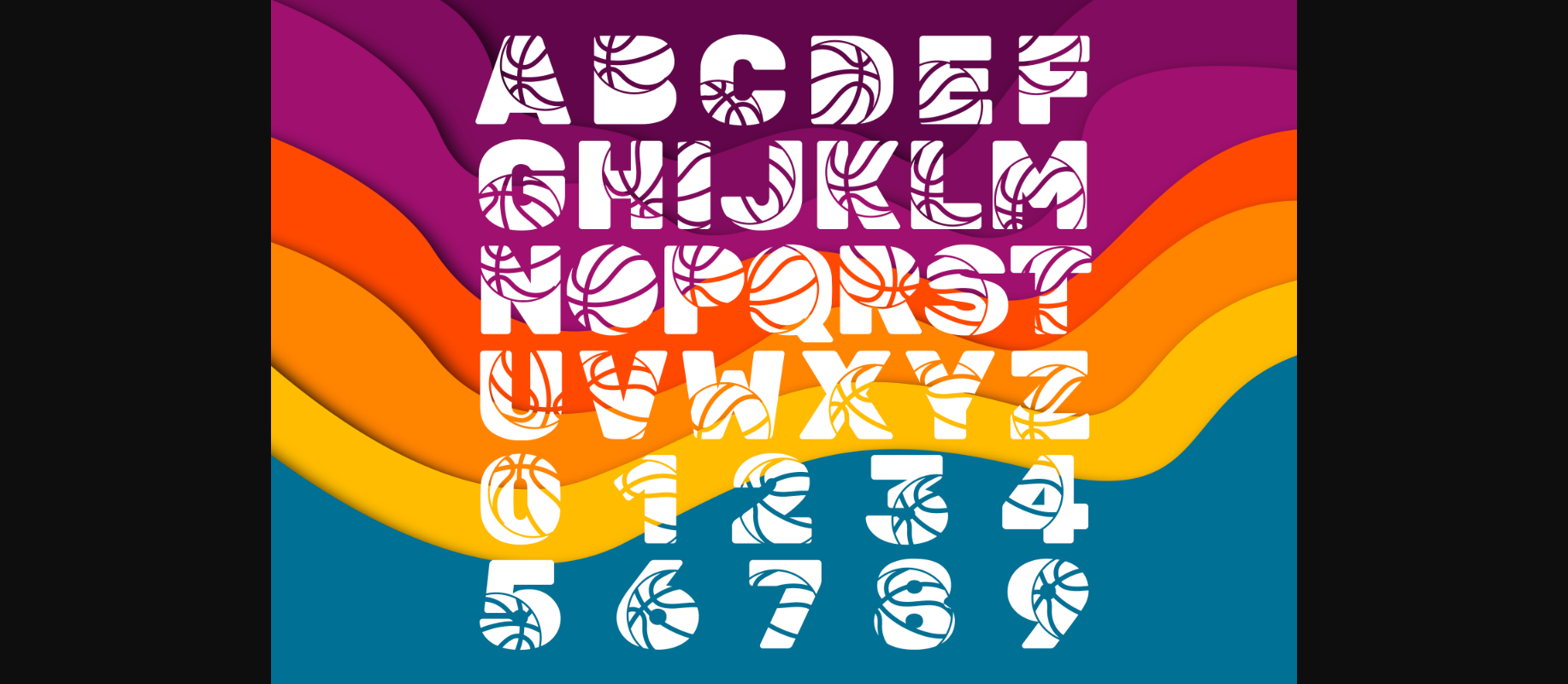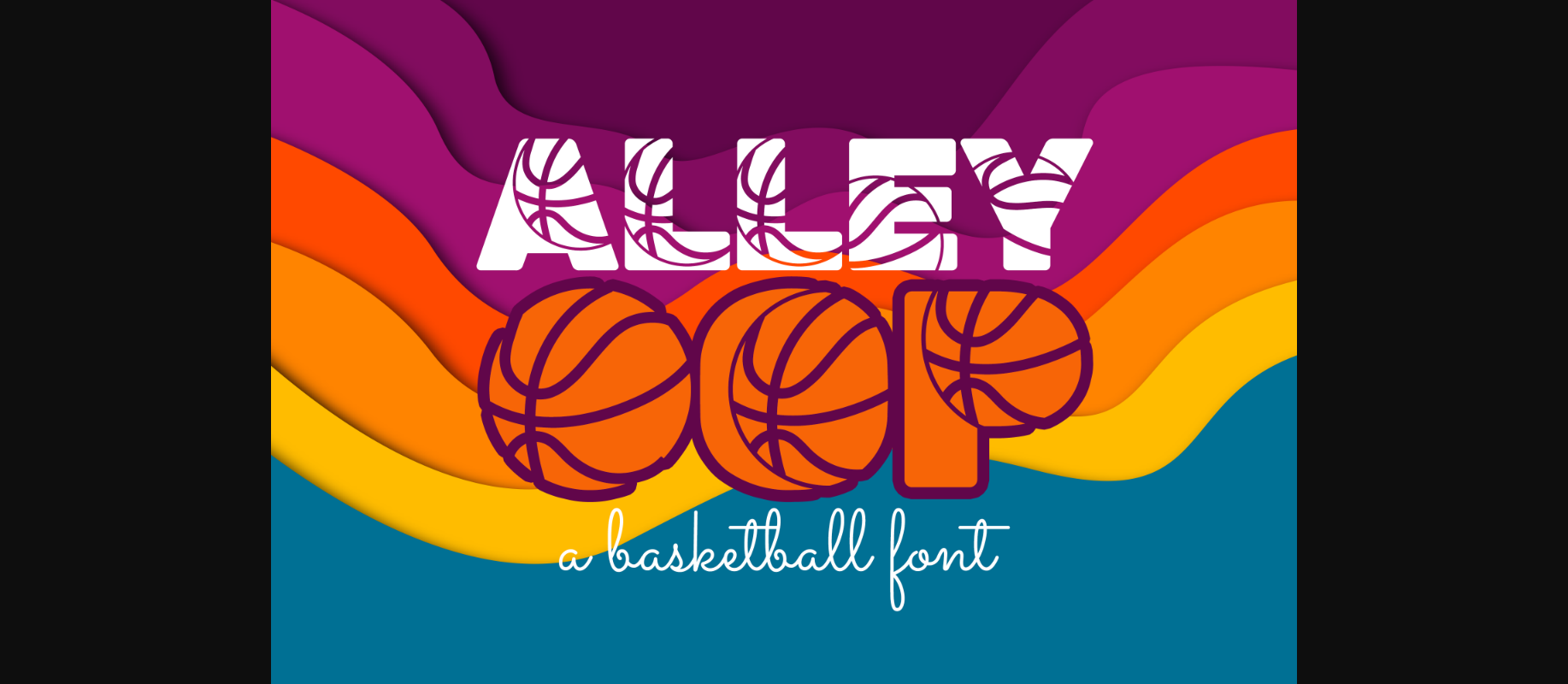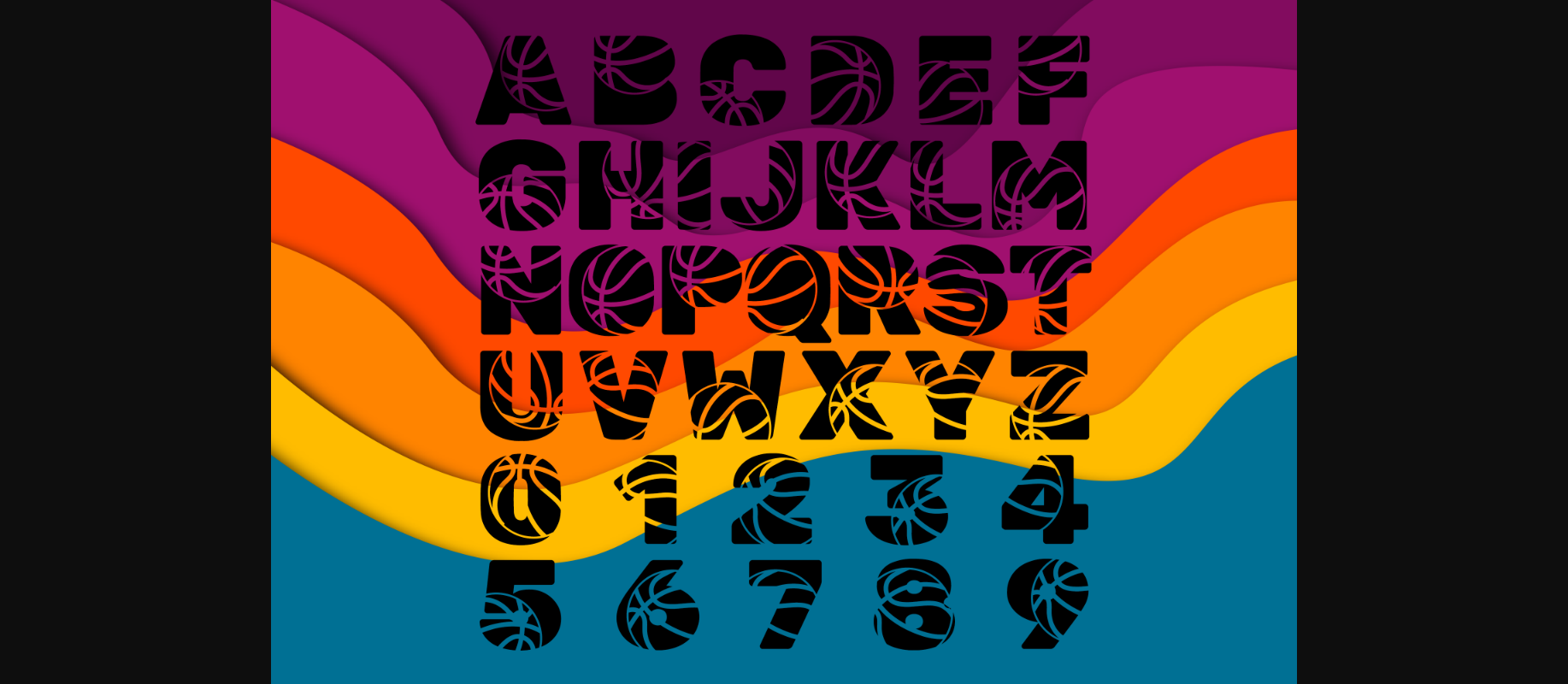
HomeDecorative FontsAlley Oop Font Decorative Fonts Alley Oop Font FacebookXPinterestWhatsApp 1 of 5 ... Alley Oop Font Poster 2... Alley Oop Font Poster 3... Alley Oop Font Poster 4... Alley Oop Font Poster 5... About Alley Oop Font Alley Oop is an incredibly cool font. It is ideal for your sports-related design ideas. Simple but with a strong visual effect, this font will instantly make your creation more appealing than any others. DOWNLOAD NOW People also explored Dignitale Font Milk Drink Font Wedding Vacation Font Roschelle Font Ancient Flower Font Handy Font Gans Antigua Manuscrito Font Voetter Font Problack Font 311 0 TagsAlley Oop Font Previous articleSlam Dunk FontNext articleEasterday Monogram Font LEAVE A REPLY Cancel reply Comment: Please enter your comment! Name:* Please enter your name here Email:* You have entered an incorrect email address! Please enter your email address here Website: Save my name, email, and website in this browser for the next time I comment. Personal Use Free Densmore Personal Use Free Read more about this font Caramel Latte Personal Use Free Read more about this font Hello Ketta Personal Use Free Read more about this font DREXS Personal Use Free Read more about this font BLOG Free Fonts Risk: Why Free Fonts Can Be Dangerous for Designers Free Fonts Risk: Why Free Fonts Can Be Dangerous for Designers Using free fonts is a common practice in web and graphic design. However, the... Free vs Paid Fonts: Why Investing in Premium Fonts Is Worth It Top 10 Handwritten Fonts That Elevate Your Designs Using Fonts in Digital Marketing: Tips to Strengthen Your Brand Identity